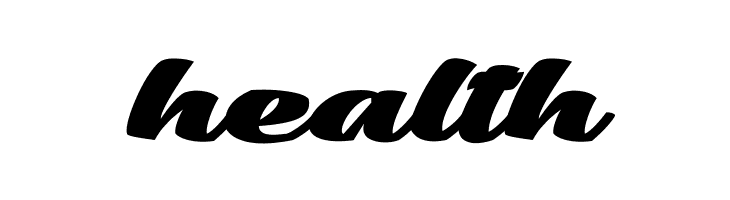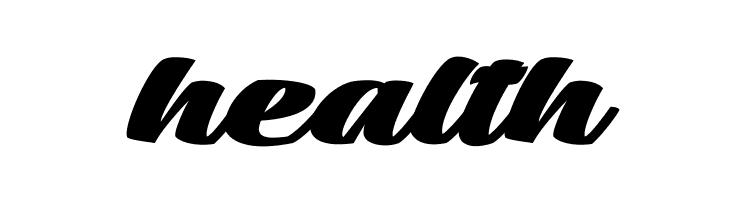
• Fresh Mango
A playful, bold handwritten font with a lively and energetic style.
• Fried Chicken
A bold, playful handwritten font with thick strokes and a casual style.
• Pamit
A playful, bold font with a hand-drawn, whimsical style.
• Apasih
A playful, hand-drawn font with a bold, textured style.
• Blueto
A playful, hand-drawn font with a bold and quirky style.